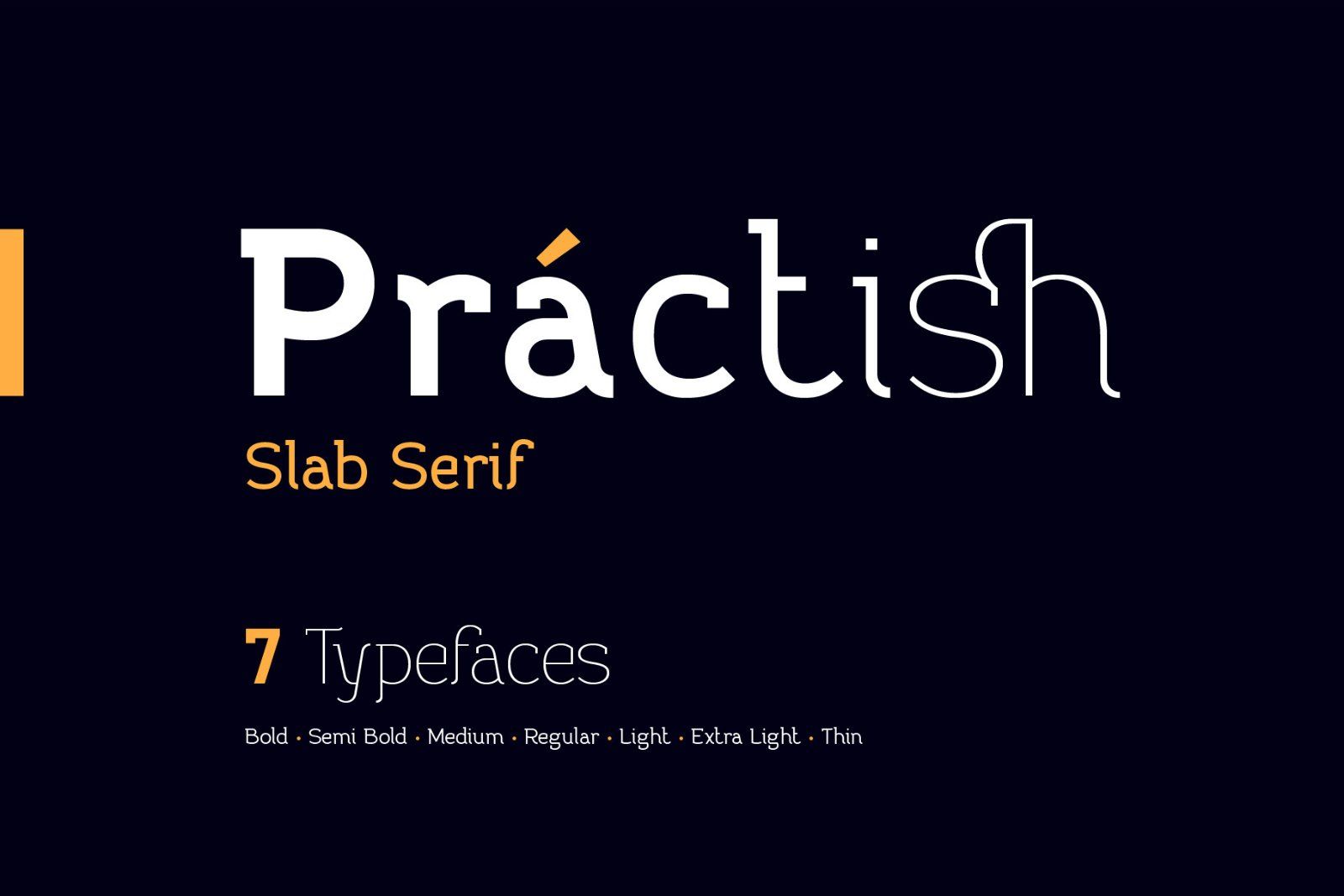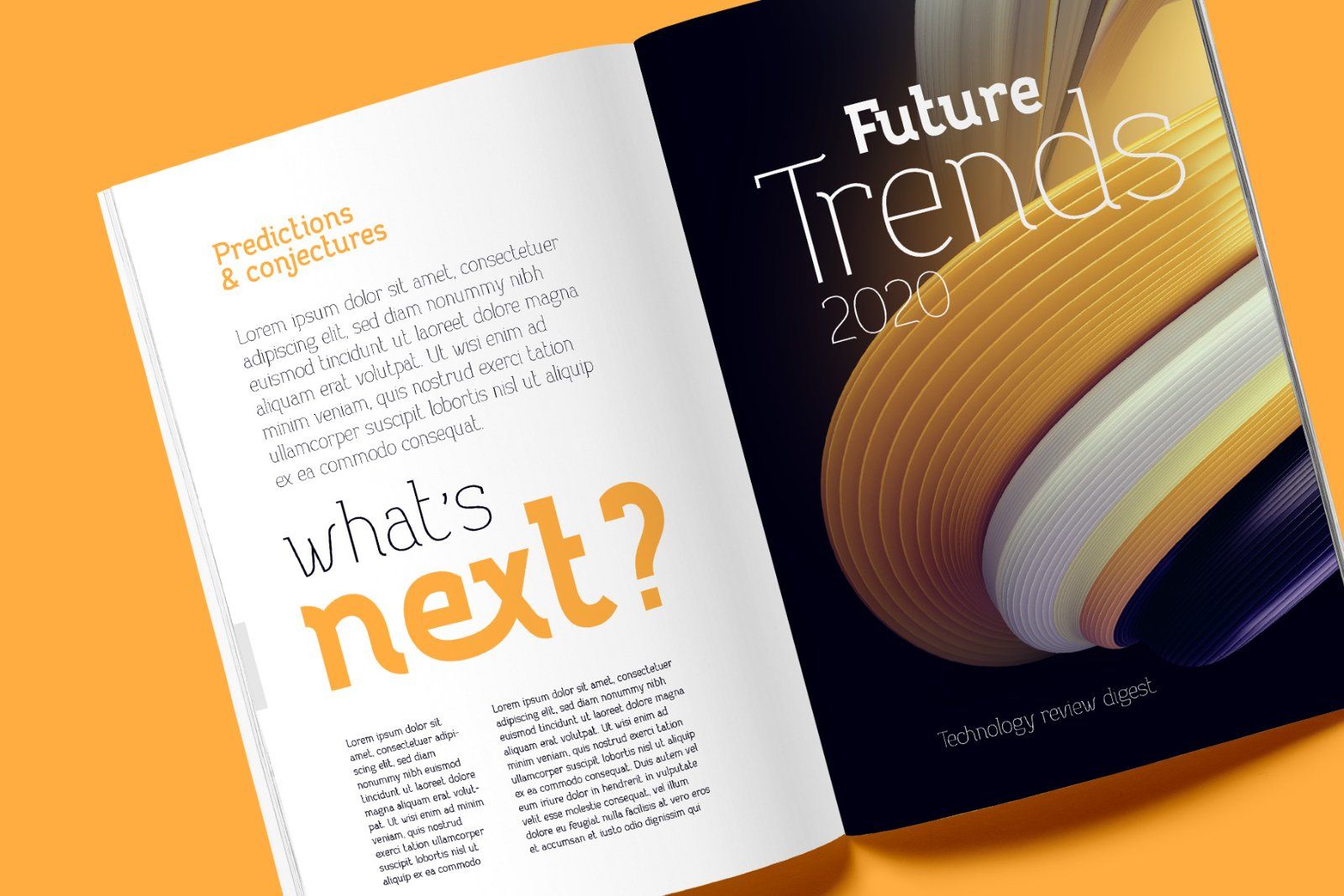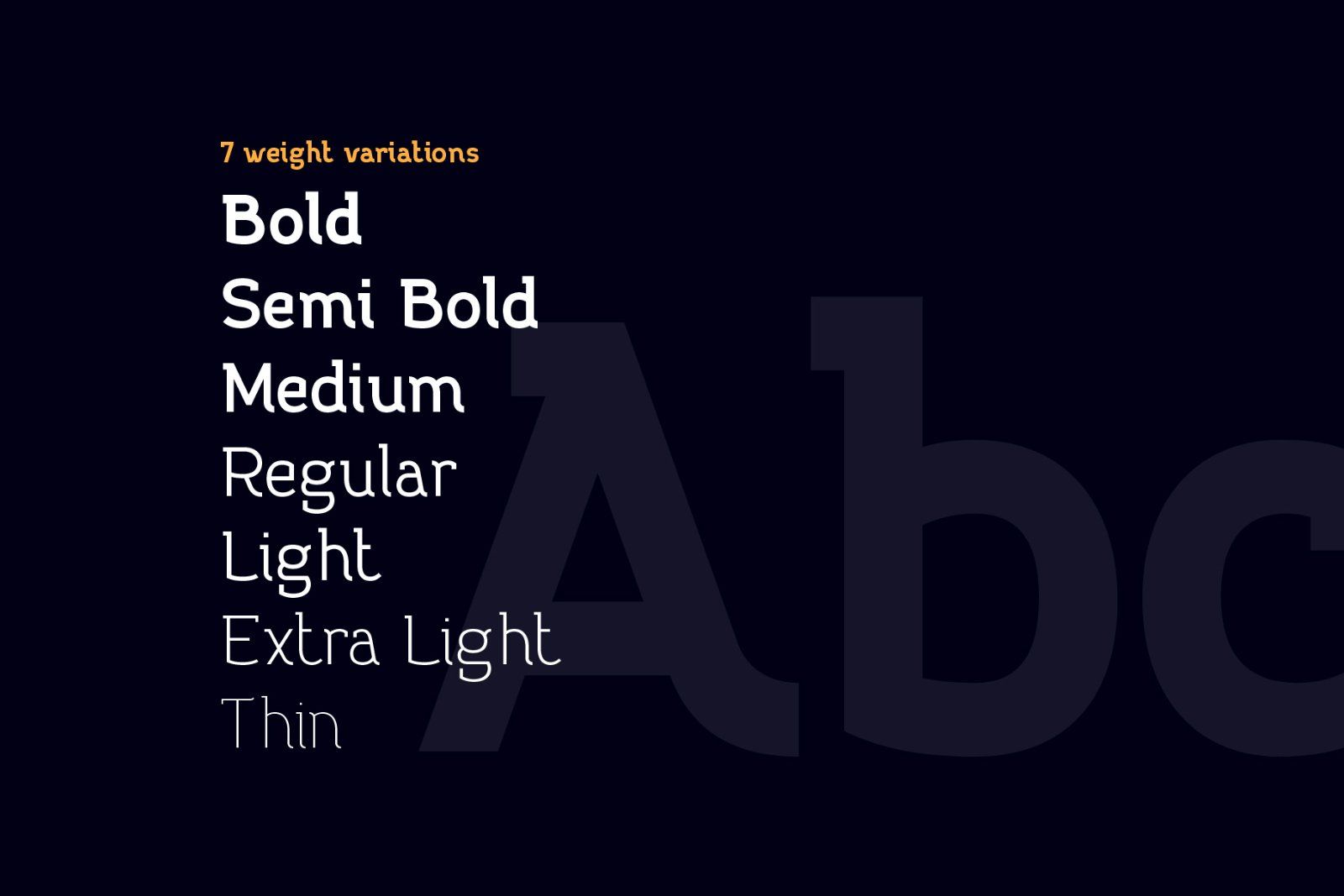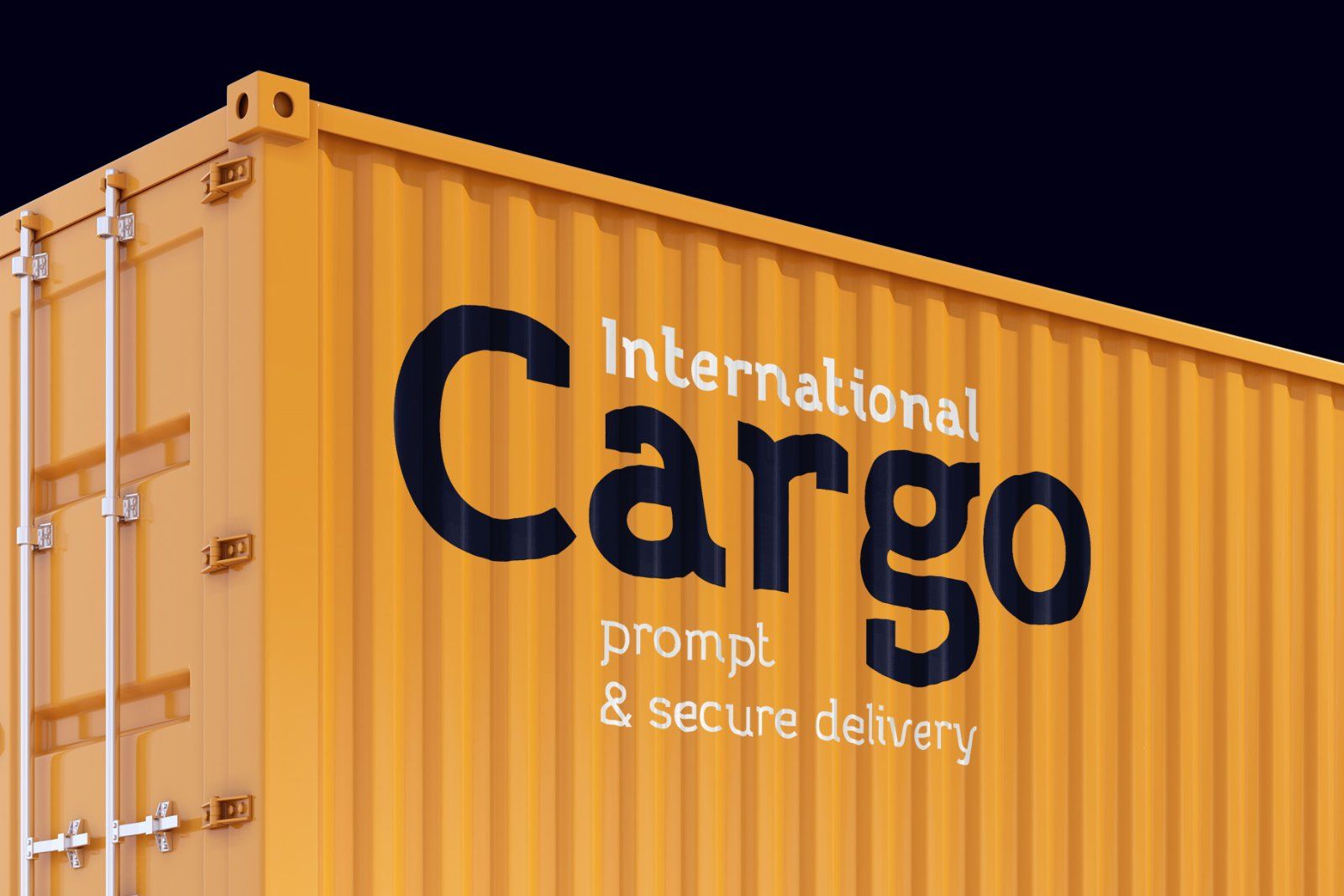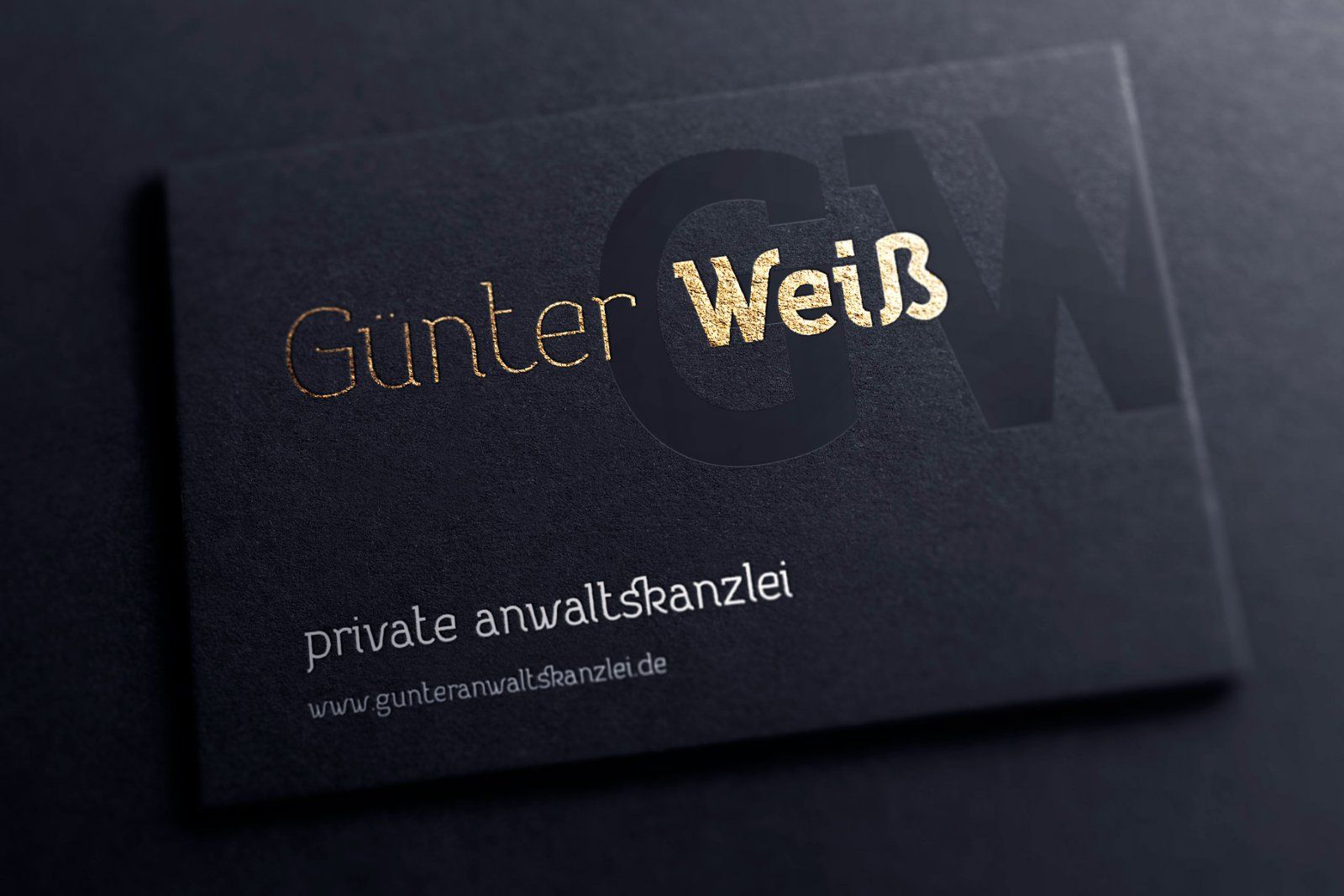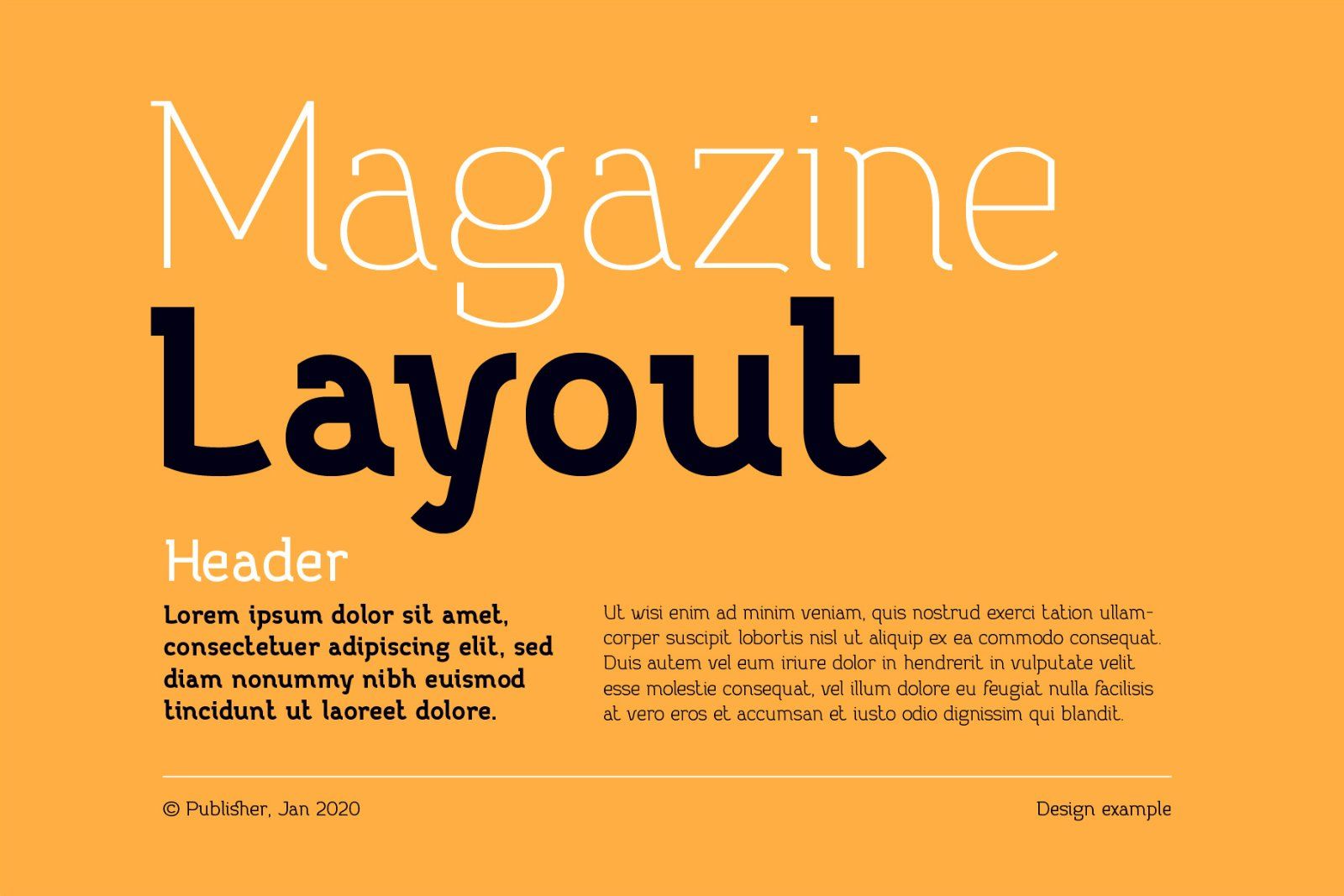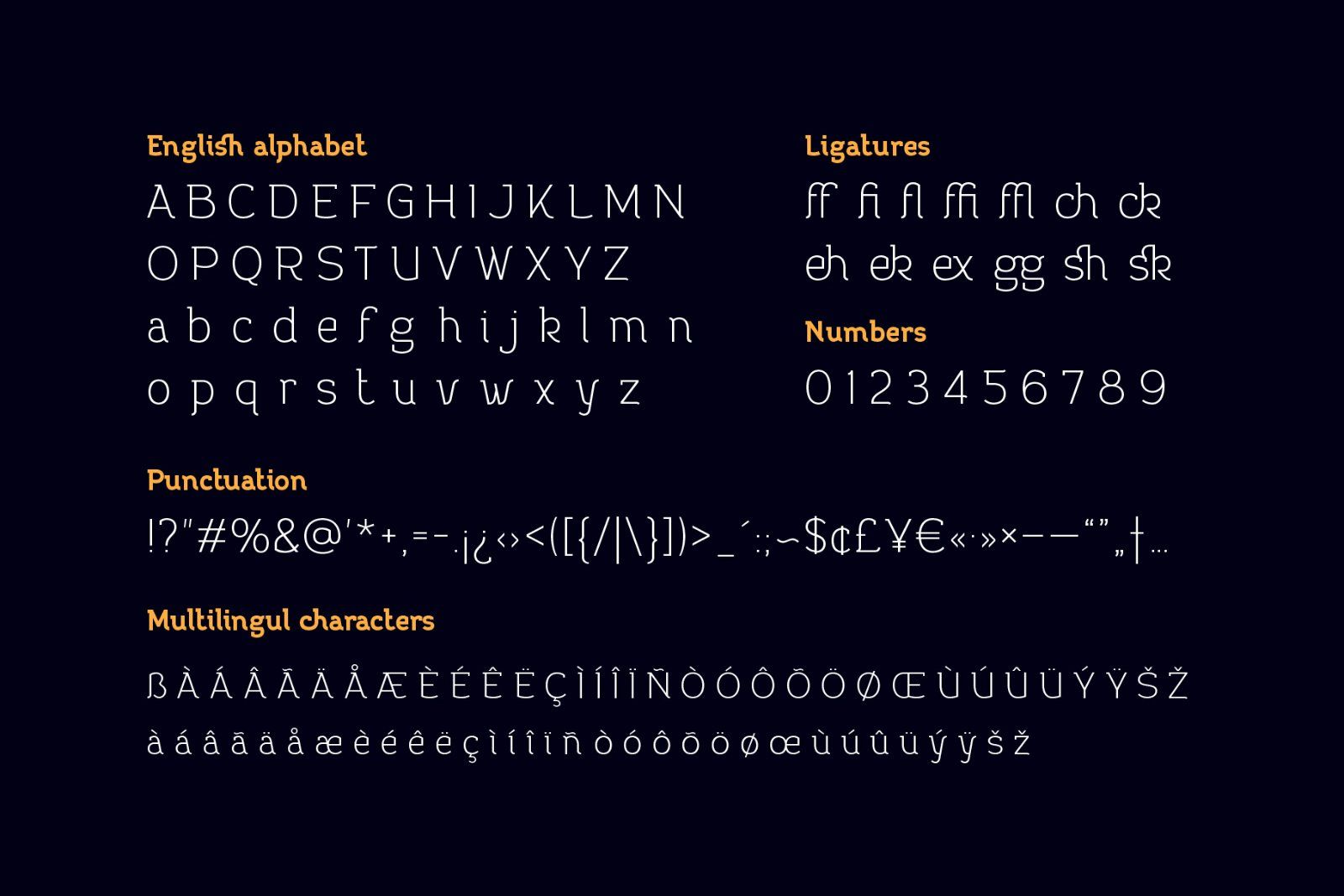
Hello! Introducing a Slab Serif font family named Practish. It's a typefaces set that includes 7 weight variations from Bold to Thin. This font has a strict classic shape and diverse characters thickness makes it useful in lots of cases at any sizes, from visit card to billboard. Practish font family has also a multilingual support of west European languages and 13 ligatures.